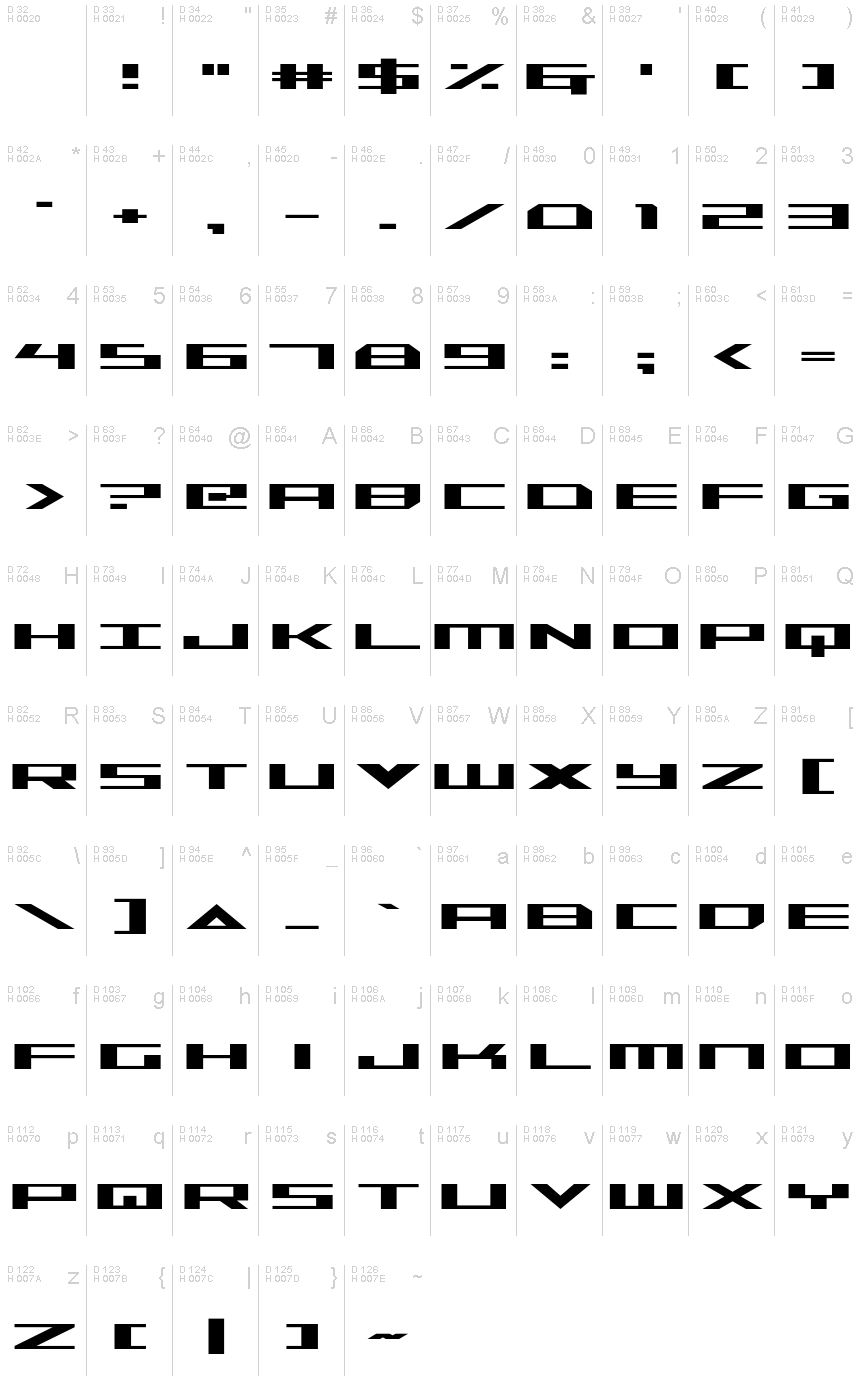
Trireme by Daniel Zadorozny of Iconian Fonts is a free futuristic display font with massive geometric lettering and a hard industrial profile. Broad rectangular forms are cut by narrow slots and squared openings, producing a dense pattern of solid strokes and sharp negative space. The proportions are emphatically wide.
Technical diagrams, circuitry, and machine imagery echo its straight edges and inset gaps, making the font useful for science-fiction posters and game graphics. It can also shape electronic music packaging and event branding with a severe engineered voice. Its strongest role is in title lettering that needs to resemble a fabricated panel rather than conventional type.